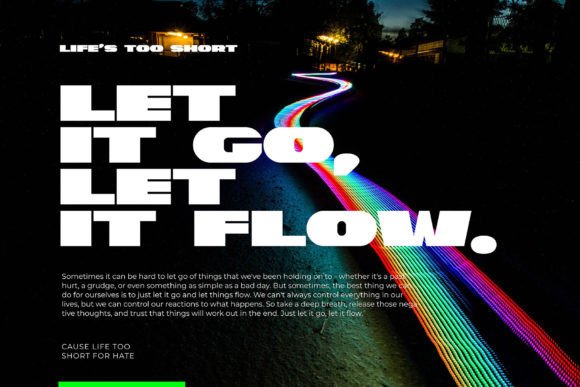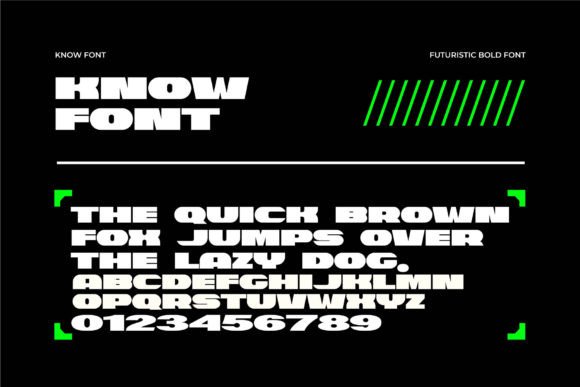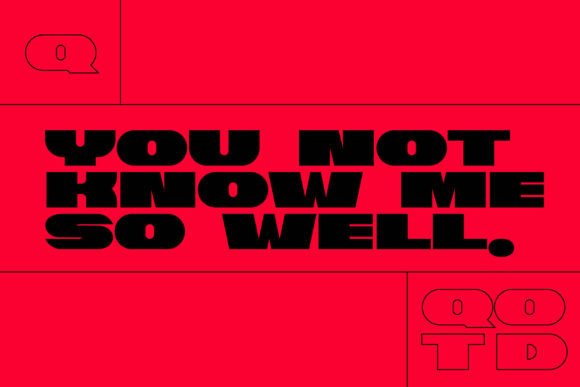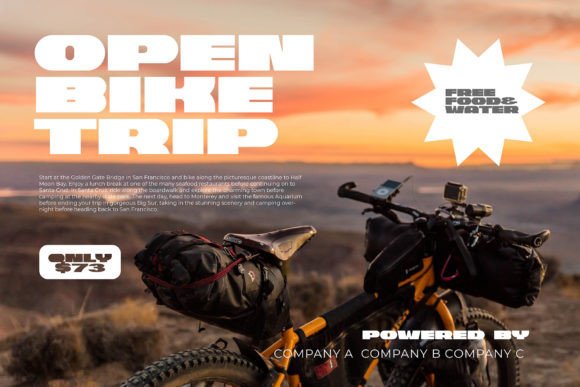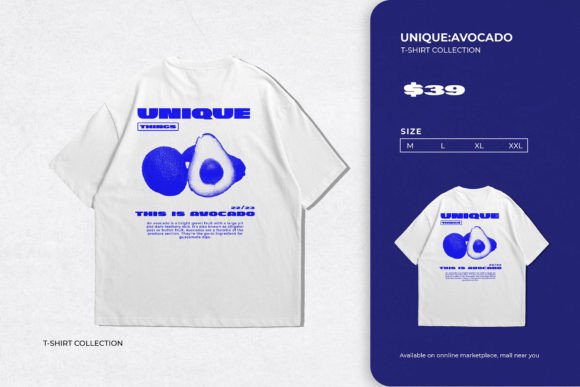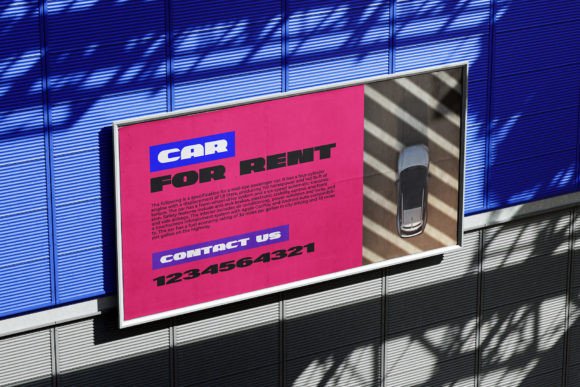
Introduction to Know Font Font
Fonts play a crucial role in design, and the Know Font font is a typeface that brings both character and versatility to any project. Whether you’re working on a branding project, a website, or a print design, the Know Font font offers a unique style that can elevate your work.
The shape is modern and unique and the writing style is very natural.
You can create many beautiful typographic designs in an instant like branding, web design and editorial, prints, crafts, quotes Itβs great for logotypes, wedding invitations, romantic cards, labels, packaging, the spelling of names, and others.
The Know Font font is more than just a typeface β it’s a design tool that helps you communicate your message with style and clarity. Its unique character set and versatile design make it suitable for a wide range of applications, from elegant invitations to bold headlines.
With its carefully crafted letterforms and balanced proportions, the Know Font font ensures readability and visual appeal across all mediums.
The Know Font font stands out with its unique design, exceptional readability, and versatility across various design applications.